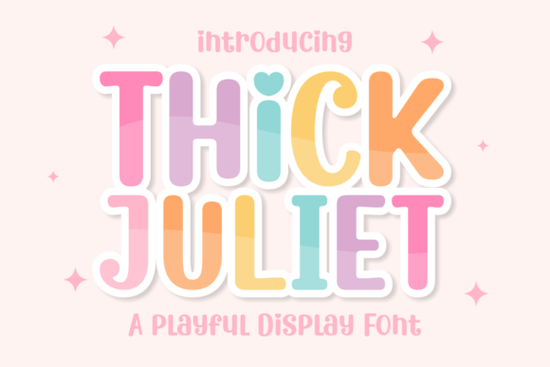
If you're looking for a playful, bold typeface that brings warmth and personality to your designs, the Thick Juliet Font might be exactly what your next project needs. With its stout block letters and cheerful rhythm, it’s especially well-suited for Valentine’s Day cards, wedding invitations, or any design where you want to convey affection without being overly formal. Unlike delicate script fonts, Thick Juliet stands out with confidence making it a great pick for both print and digital use.
What makes Thick Juliet different from other display fonts?
Many display fonts lean either toward elegance or grit but Thick Juliet strikes a sweet middle ground. It’s inspired by the lighthearted joy of romance, not just its grand gestures. The letterforms are rounded yet sturdy, giving off a friendly vibe that works beautifully for greeting cards, social media graphics, or even product packaging for small-batch confectionery brands.
If you’ve enjoyed fonts like Grunge Bold X for their texture-heavy impact or Comic Thick for their bouncy energy, you’ll appreciate how Thick Juliet offers a softer, more approachable alternative. It doesn’t shout it smiles.
Who should use this font?
This font is ideal if you’re:
- A stationery designer creating heartfelt cards or gift tags
- A print-on-demand seller crafting mugs, tote bags, or apparel with romantic slogans
- A small business owner designing in-store signage or seasonal promotions
- A hobbyist making scrapbook layouts or DIY wedding decor
Because of its generous weight and clear spacing, Thick Juliet remains legible even at smaller sizes though it truly shines when given room to breathe in headlines or feature text.
How does it compare to similar Creative Fabrica fonts?
Creative Fabrica offers several bold, characterful display fonts that serve different moods. For example:
- Thick Honey has a smoother, more modern flow great for branding that leans minimalist but still wants warmth.
- Block Retro channels vintage signage with sharper corners and a nostalgic feel.
Thick Juliet sits comfortably between these styles. It’s not retro, not ultra-modern it’s timeless in a way that feels personal. Think handwritten chalkboard signs at a cozy café or love notes tucked into lunchboxes. That’s the emotional tone it captures.
Tips for using Thick Juliet effectively
To get the most out of this font, keep these practical ideas in mind:
- Pair it with simple sans-serifs. Because Thick Juliet has strong personality, balance it with clean, neutral fonts like Helvetica or Montserrat for body text.
- Use ample spacing. Its chunky letters benefit from generous line height and letter spacing especially in all-caps layouts.
- Limit it to short phrases. This is a display font, so it works best for headlines, quotes, or single words (like “Love,” “Always,” or “Sweet”).
- Try it in unexpected contexts. Beyond Valentine’s Day, it suits baby announcements, bakery menus, or even motivational wall art with uplifting messages.
And don’t overlook color! While it looks classic in red or pink, Thick Juliet also pops in earthy tones like terracotta or sage green perfect for modern rustic or boho-themed projects.